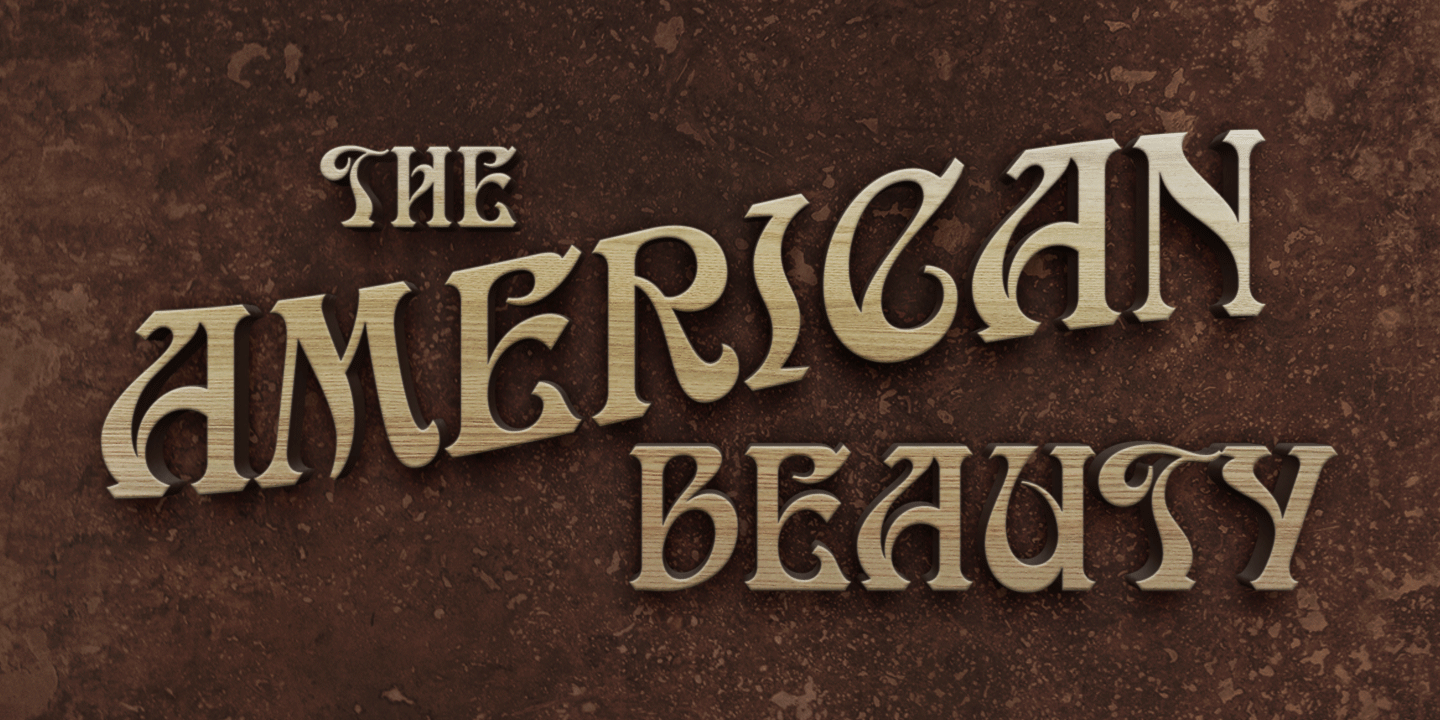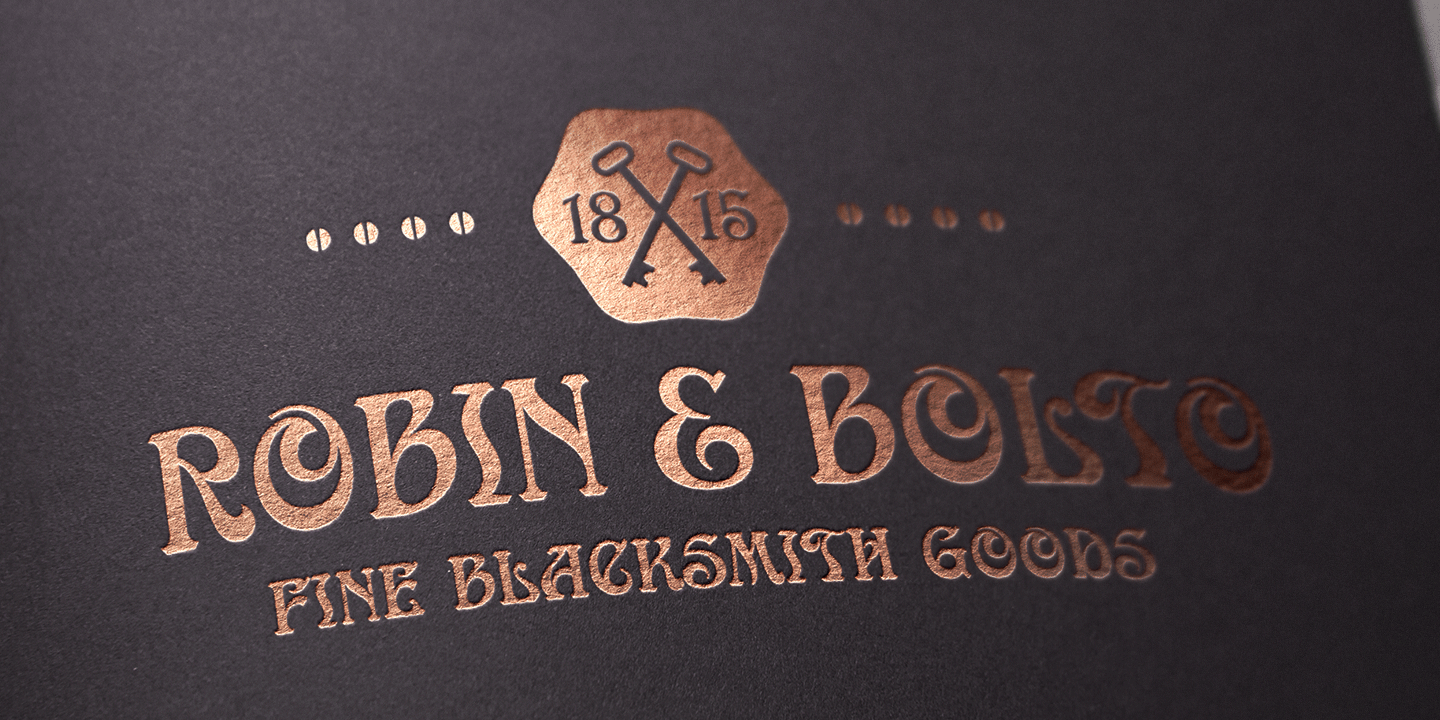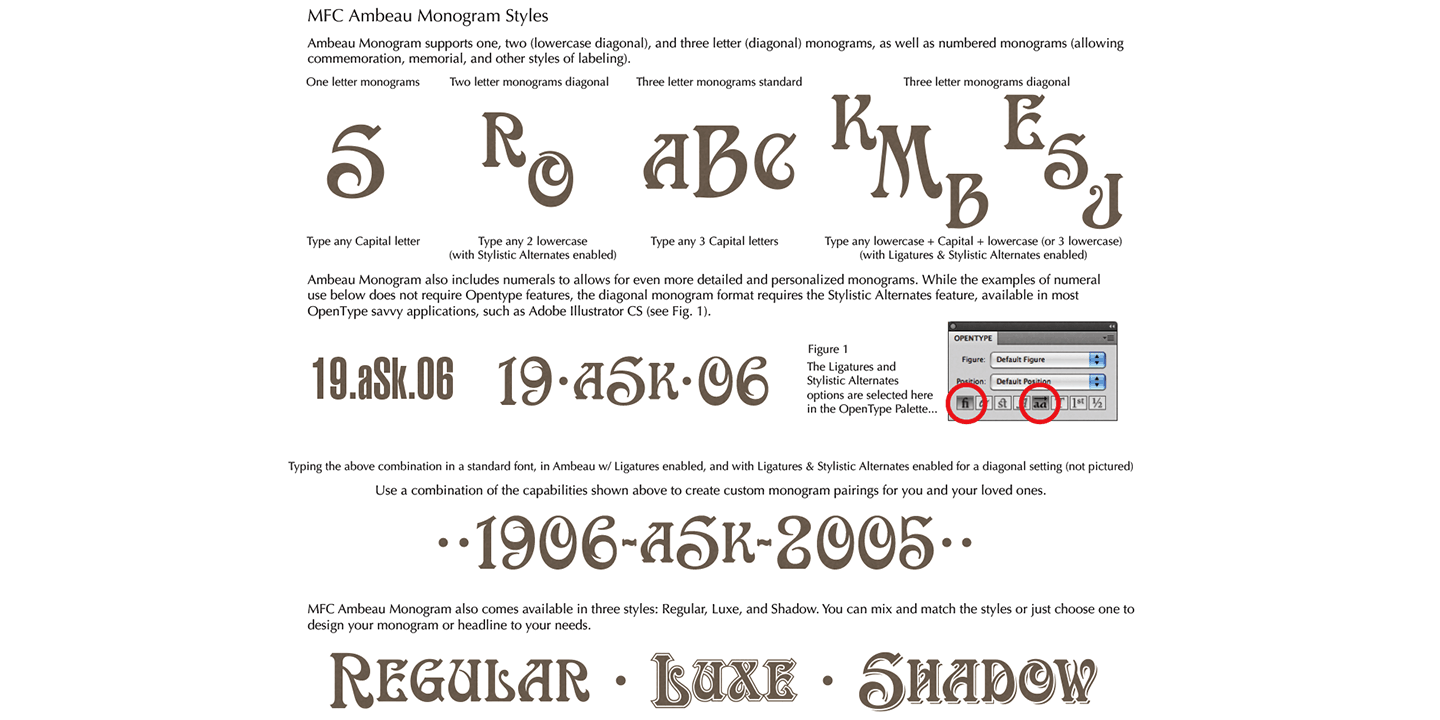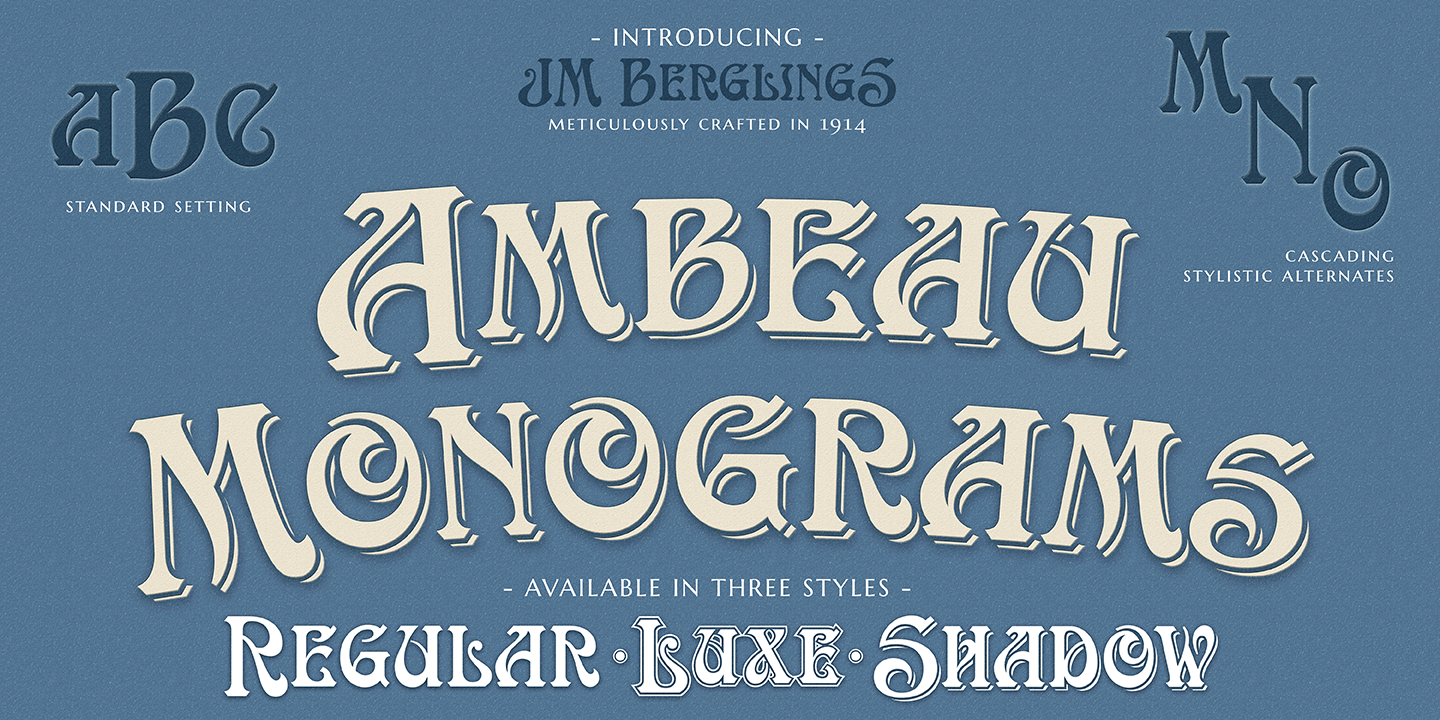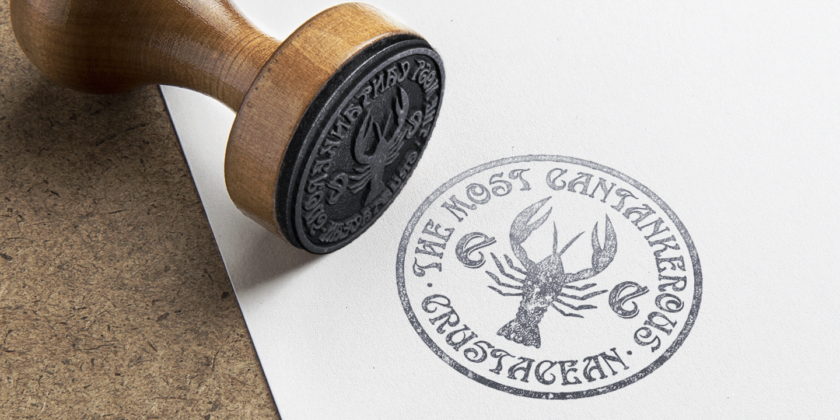
About MFC Ambeau Monograms
The source of inspiration for MFC Ambeau Monogram is a letter set from the book, Art Alphabets and Lettering by J.M. Bergling, published in 1914. This elegant historical style was simply dubbed, \’the American Beauty?. MFC Ambeau Monogram can create one,…